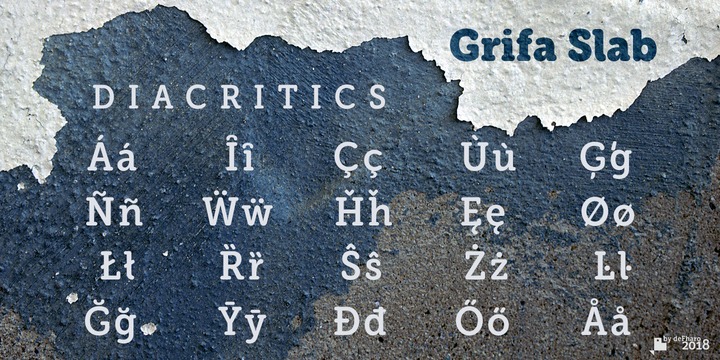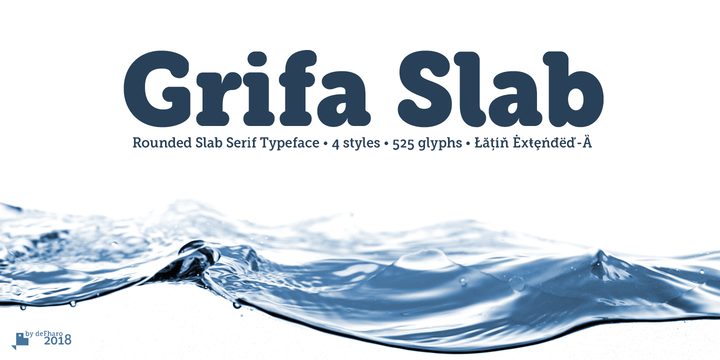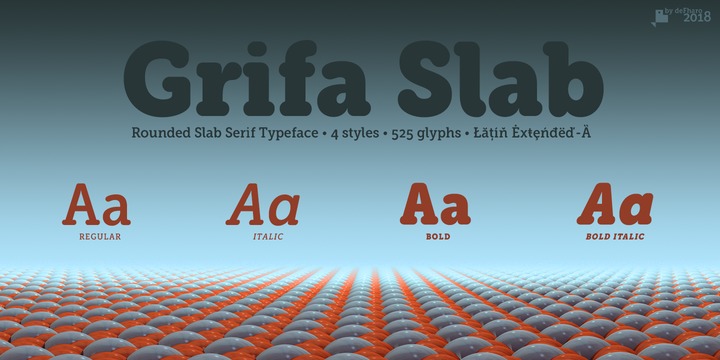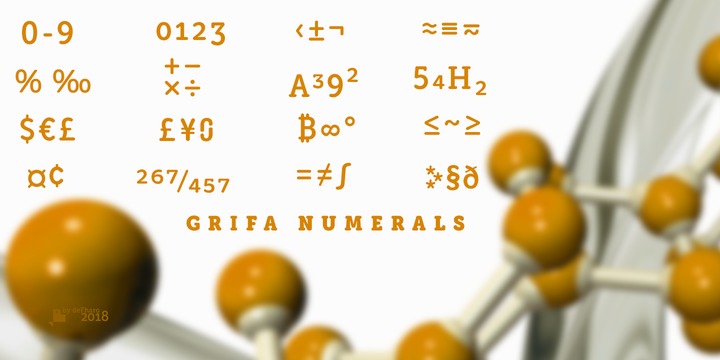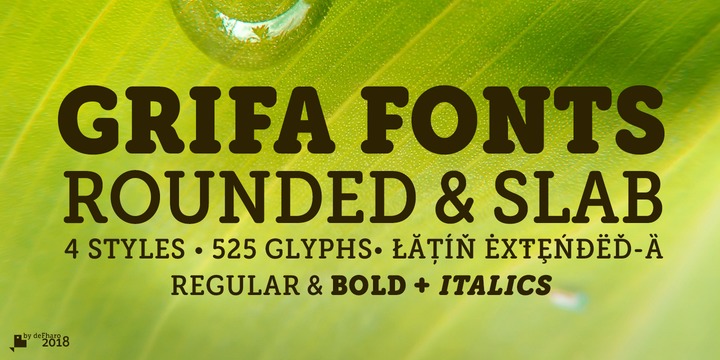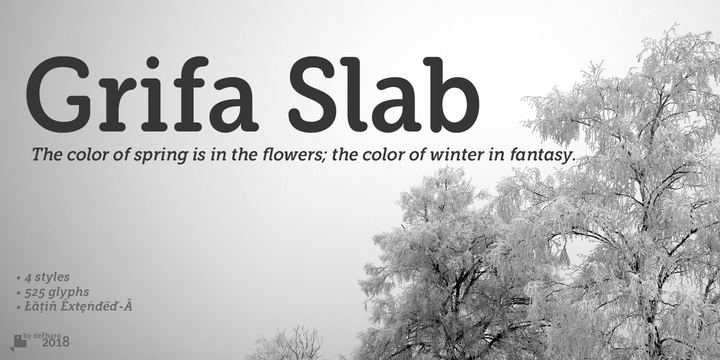
Grifa Slab Font Family
About this font family
Grifa Slab is a chunky typeface with thick rounded slab serifs in 4 styles with true italics, ideal for very legible titles and with a hard and smooth aspect at the same time. You can use this font in editorial design for headlines, also for advertising and the design of posters, signs or posters, in all cases readability is guaranteed.